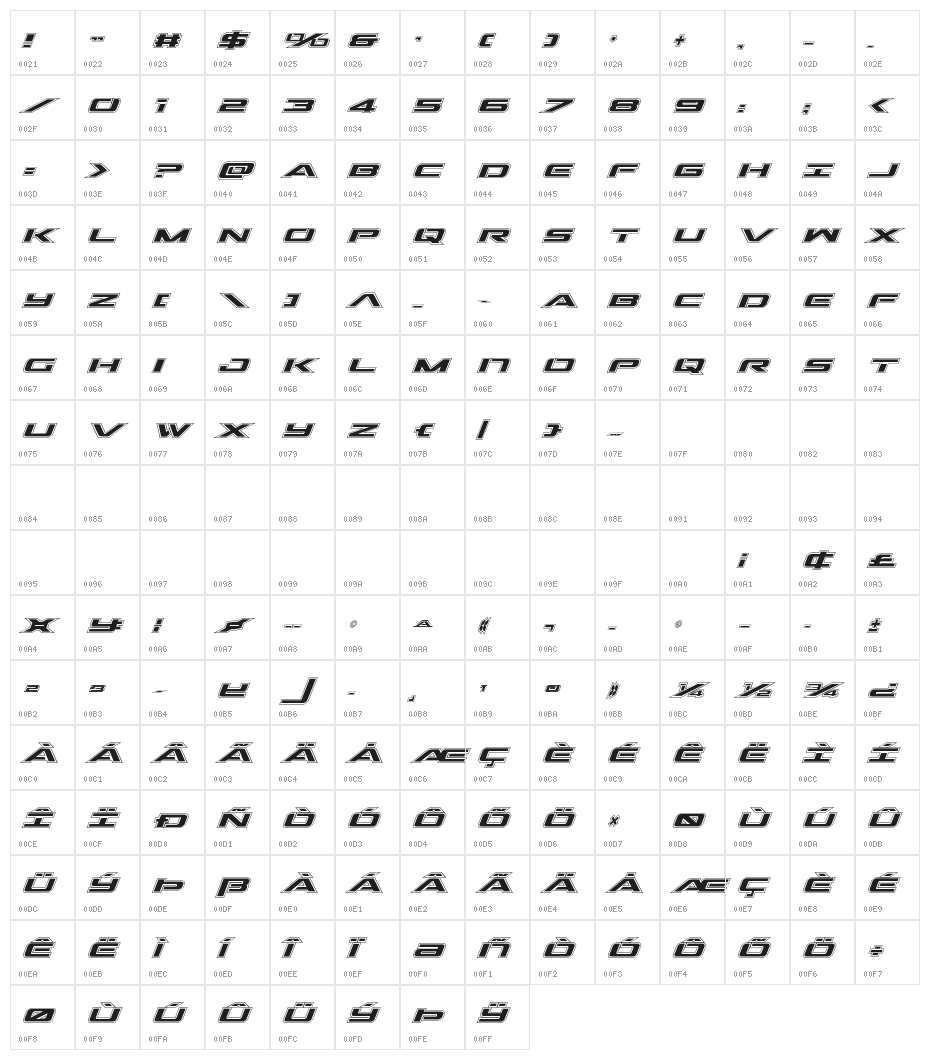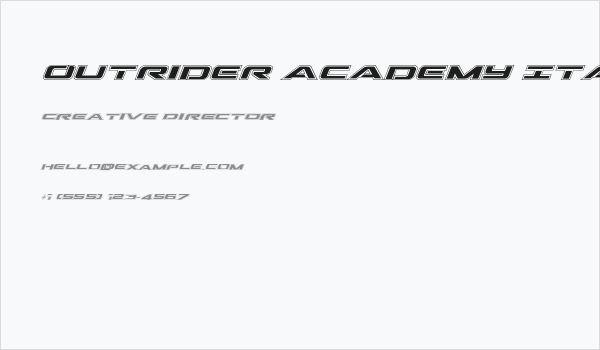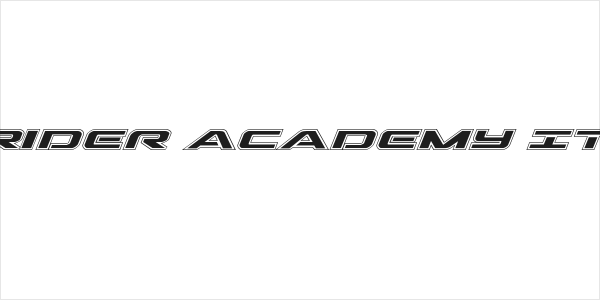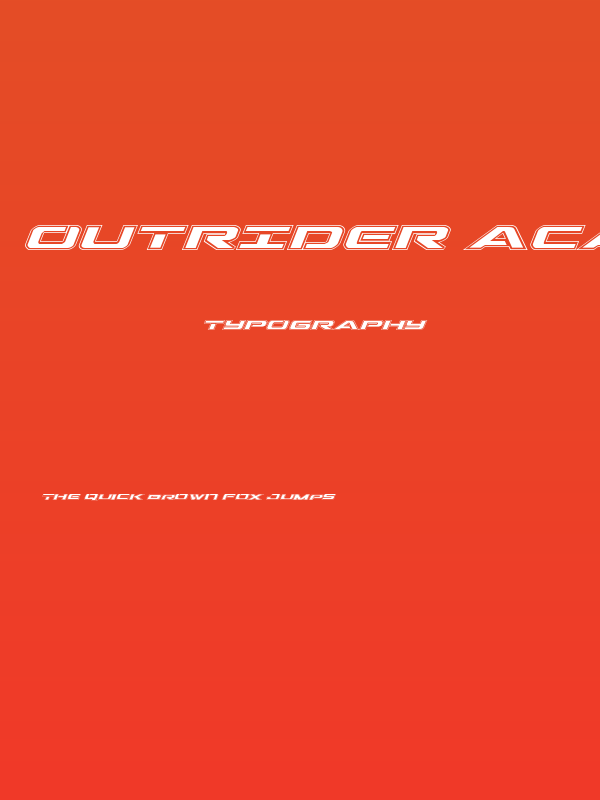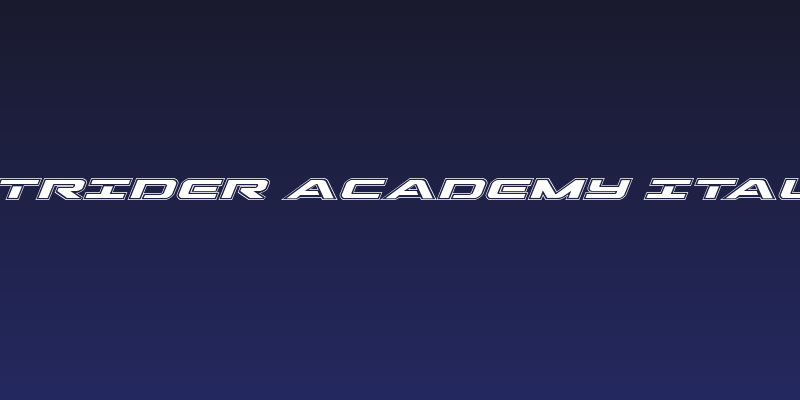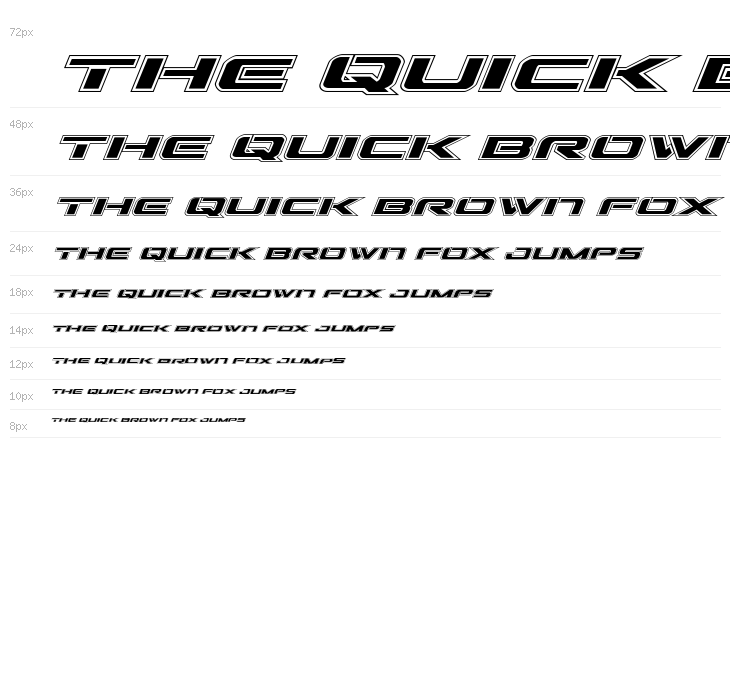
Outrider Academy Italic Font
Outrider Academy Italic Description
This font features a bold, italicized style with a futuristic and dynamic appearance. The characters are outlined with a double line, giving them a three-dimensional effect. The angular and geometric design of the letters conveys a sense of speed and modernity. The uppercase and lowercase letters maintain a consistent style, with sharp edges and a slanted orientation that enhances the italic effect. The numerals and special characters follow the same design principles, ensuring uniformity across the font. This font is ideal for projects that require a bold and eye-catching aesthetic.